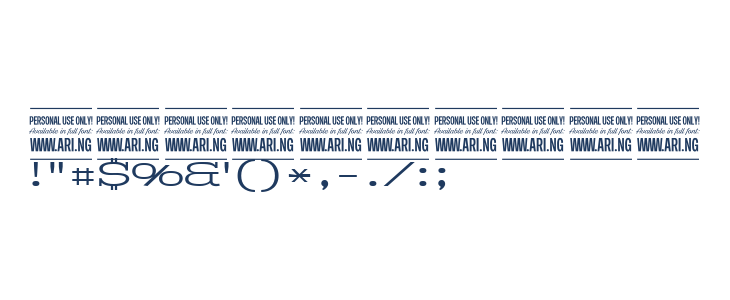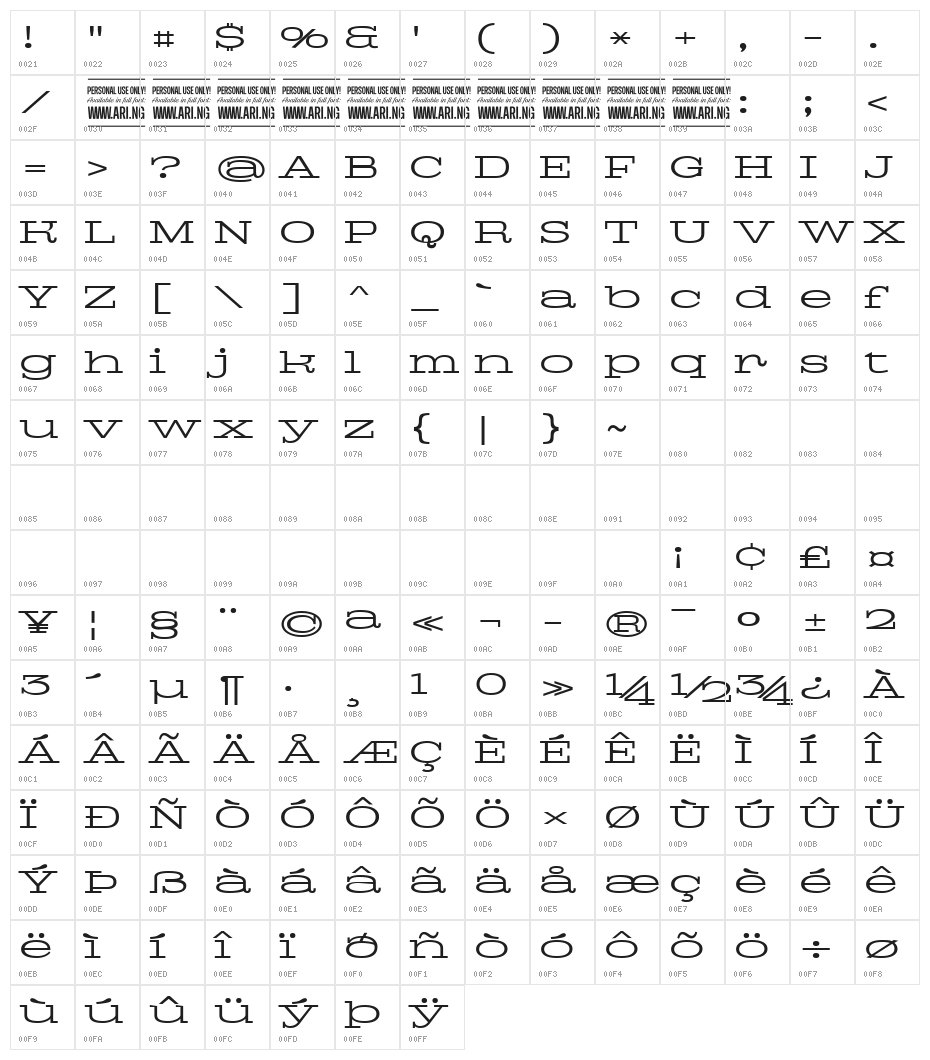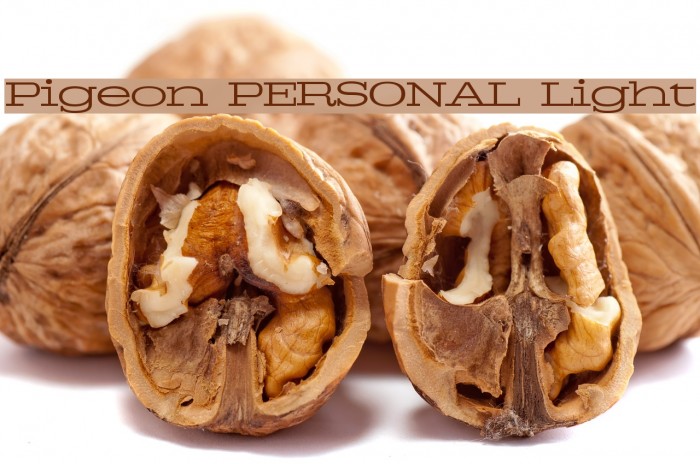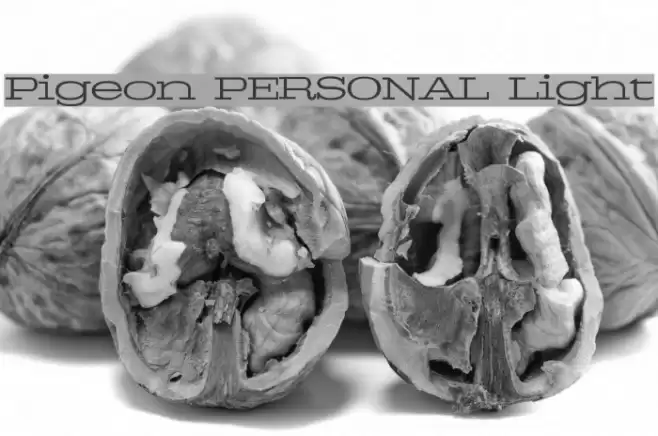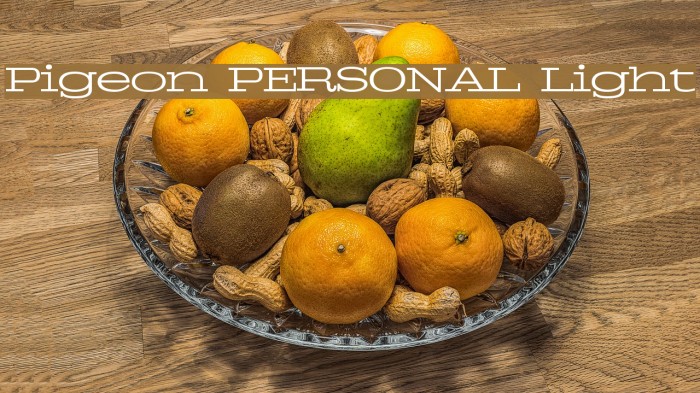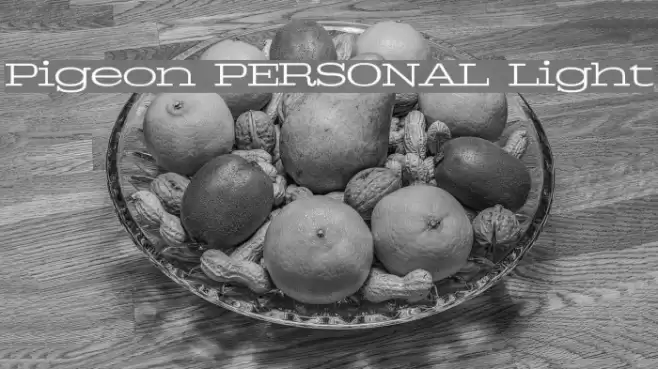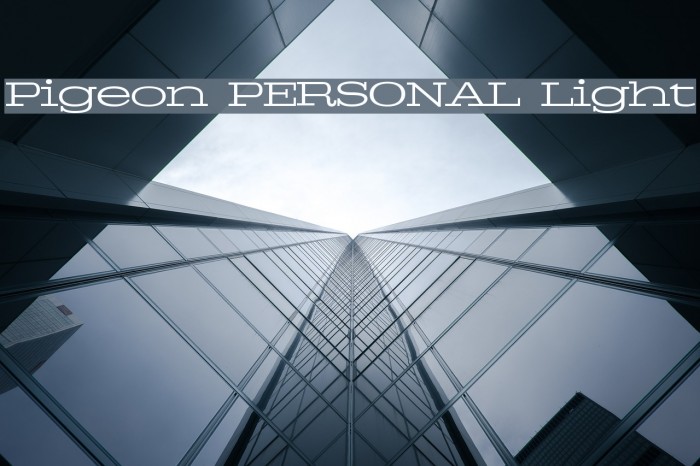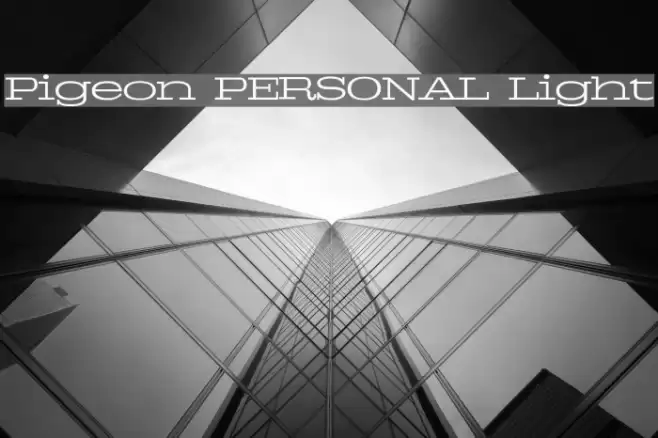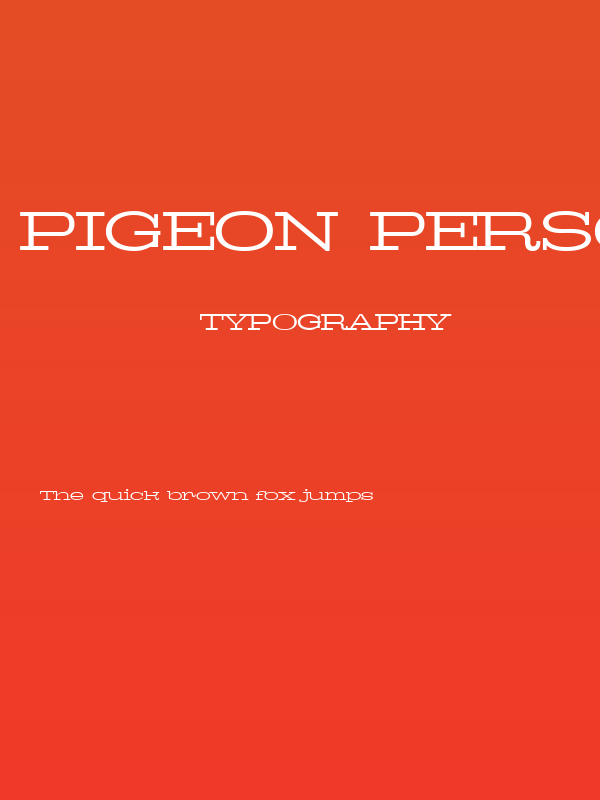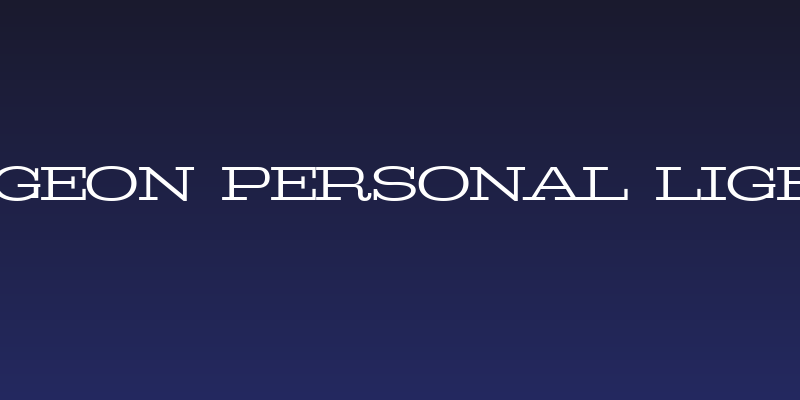
Pigeon PERSONAL Light Font
Pigeon PERSONAL Light Description
This font features a modern and elegant design with a distinct geometric structure. The uppercase letters are bold and commanding, while the lowercase letters maintain a consistent flow with subtle curves. The characters exhibit a unique blend of sharp angles and smooth lines, creating a sophisticated and contemporary appearance. The numerals and special characters are crafted with precision, maintaining the overall aesthetic of the font. The spacing between characters is balanced, ensuring readability and visual appeal.
| Proposed Projects | Ideal for branding, editorial design, and modern web design projects. |